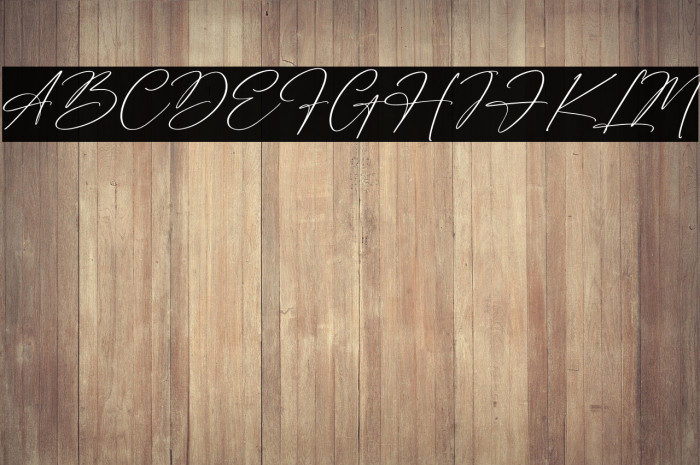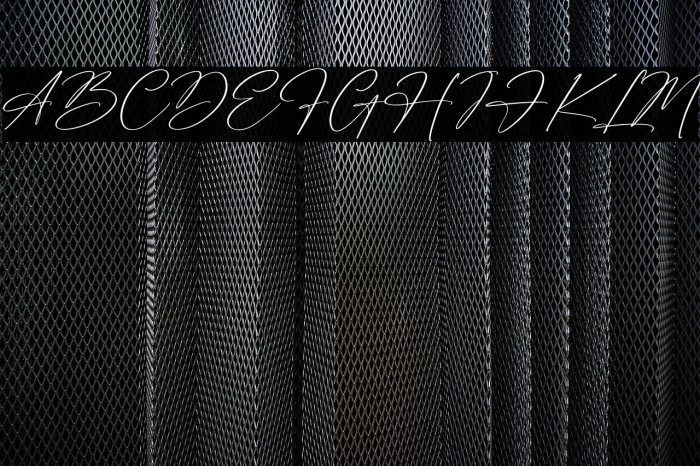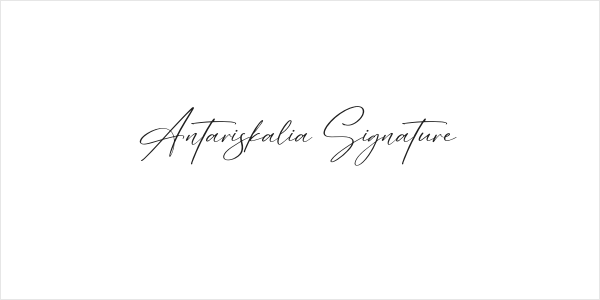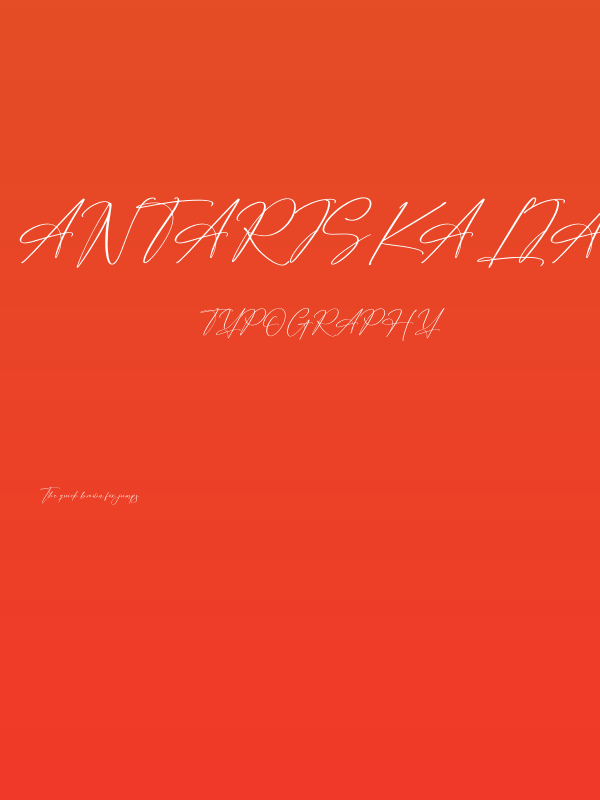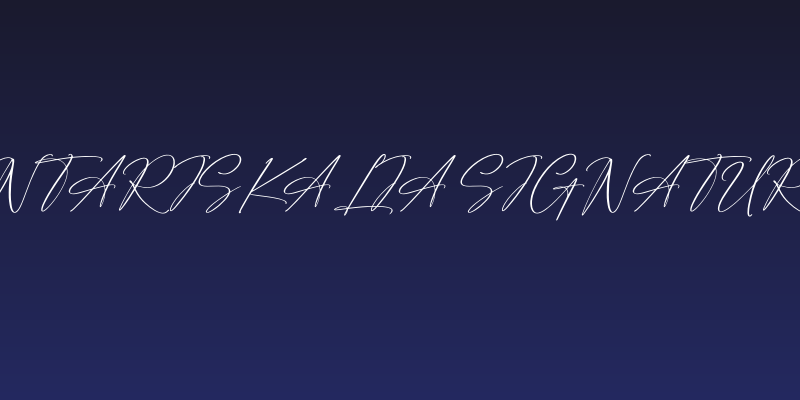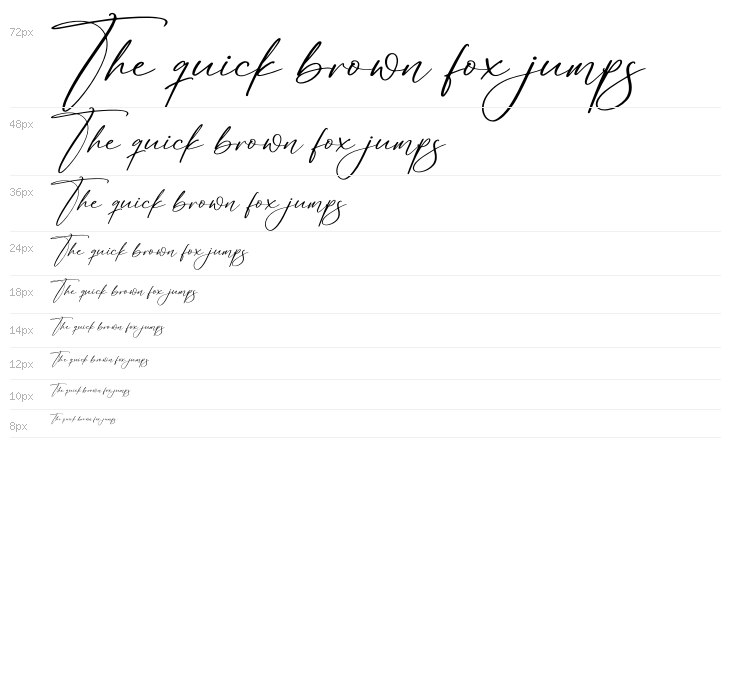
Antariskalia Signature Font
Antariskalia Signature Description
A flowing, elegant script font with a handwritten style, featuring smooth curves and a natural, personal touch.
| Overall Style | Elegant, Handwritten |
| Proposed Projects | Wedding invitations, personal branding, elegant logos. |